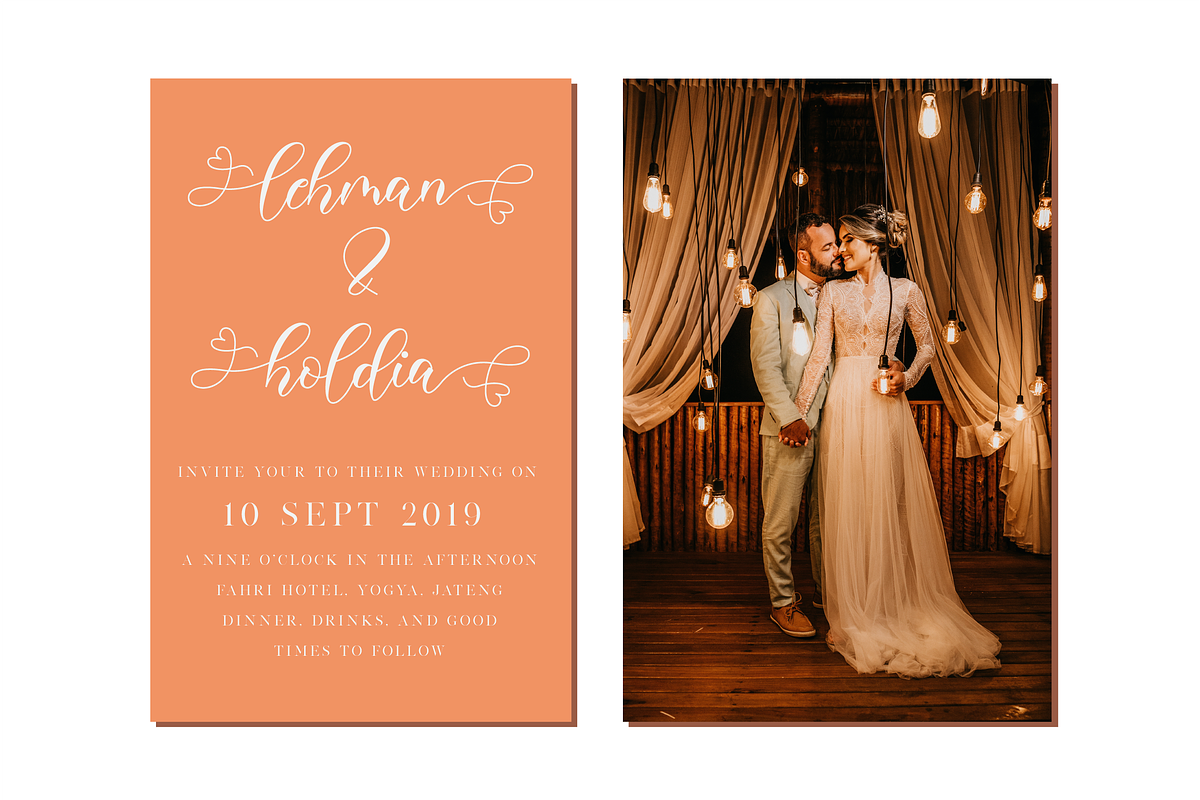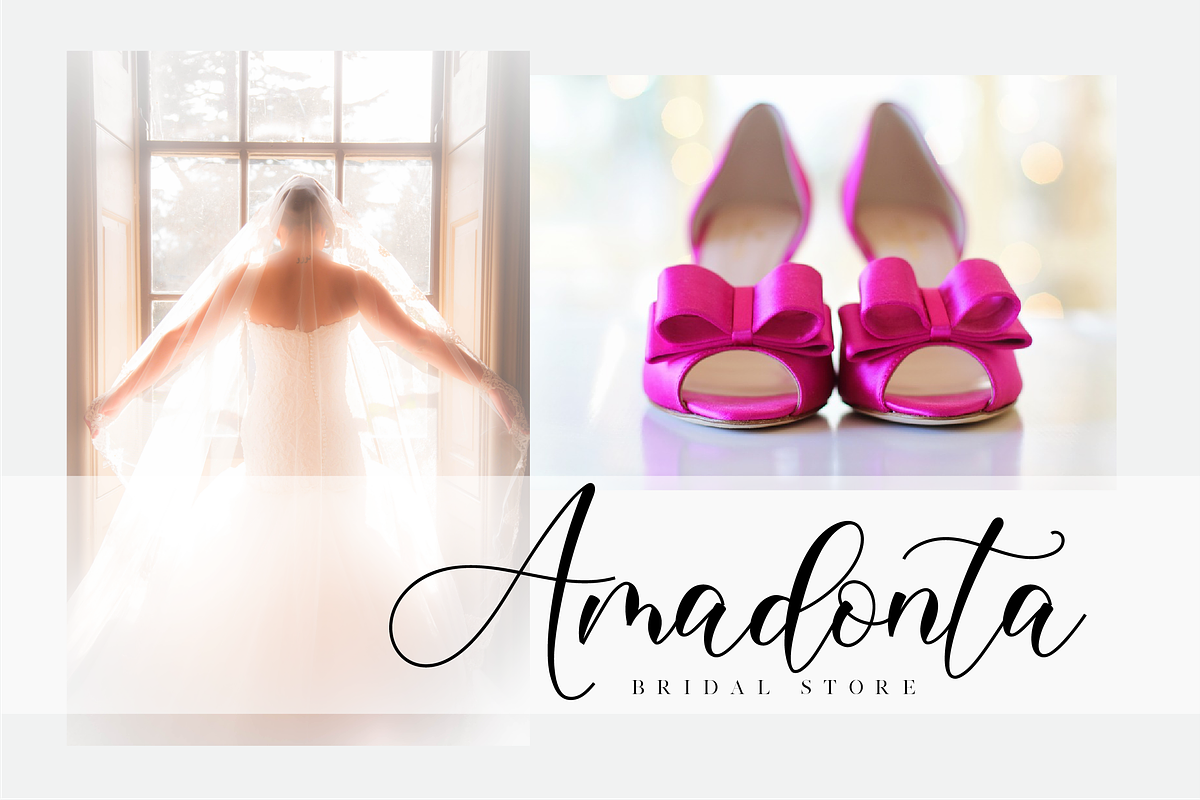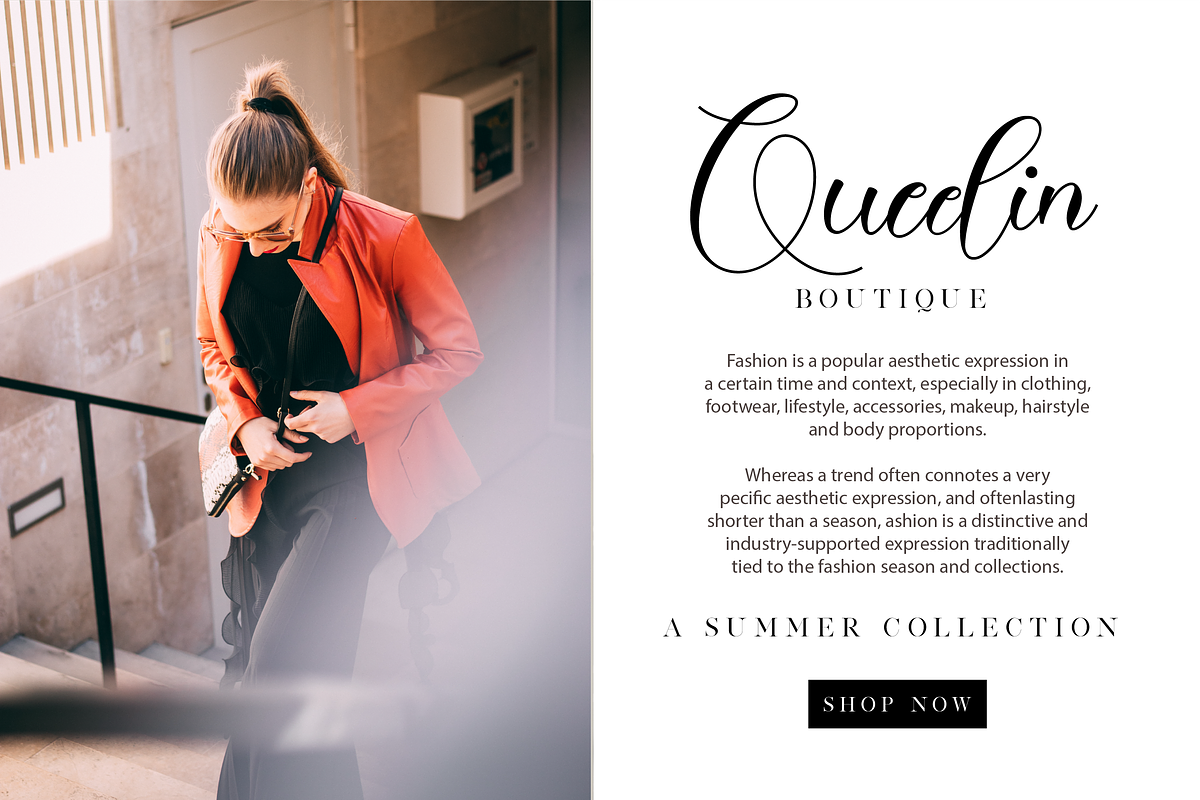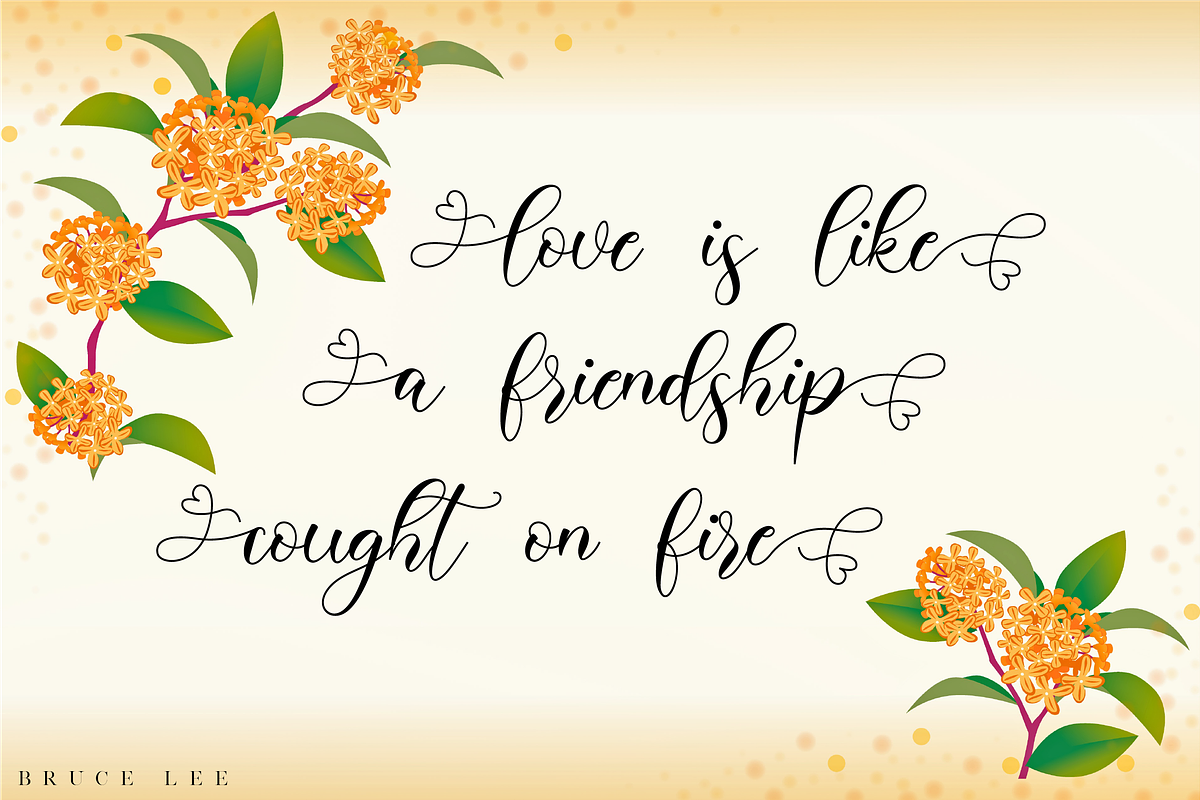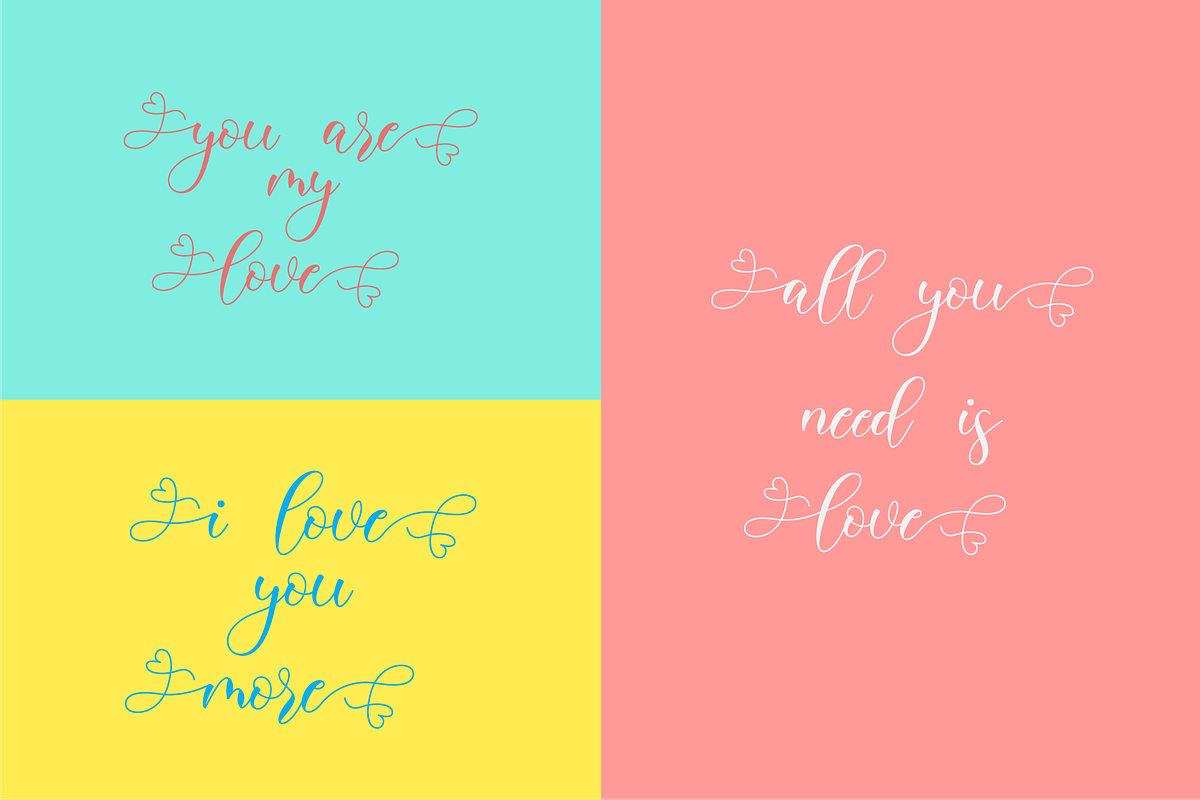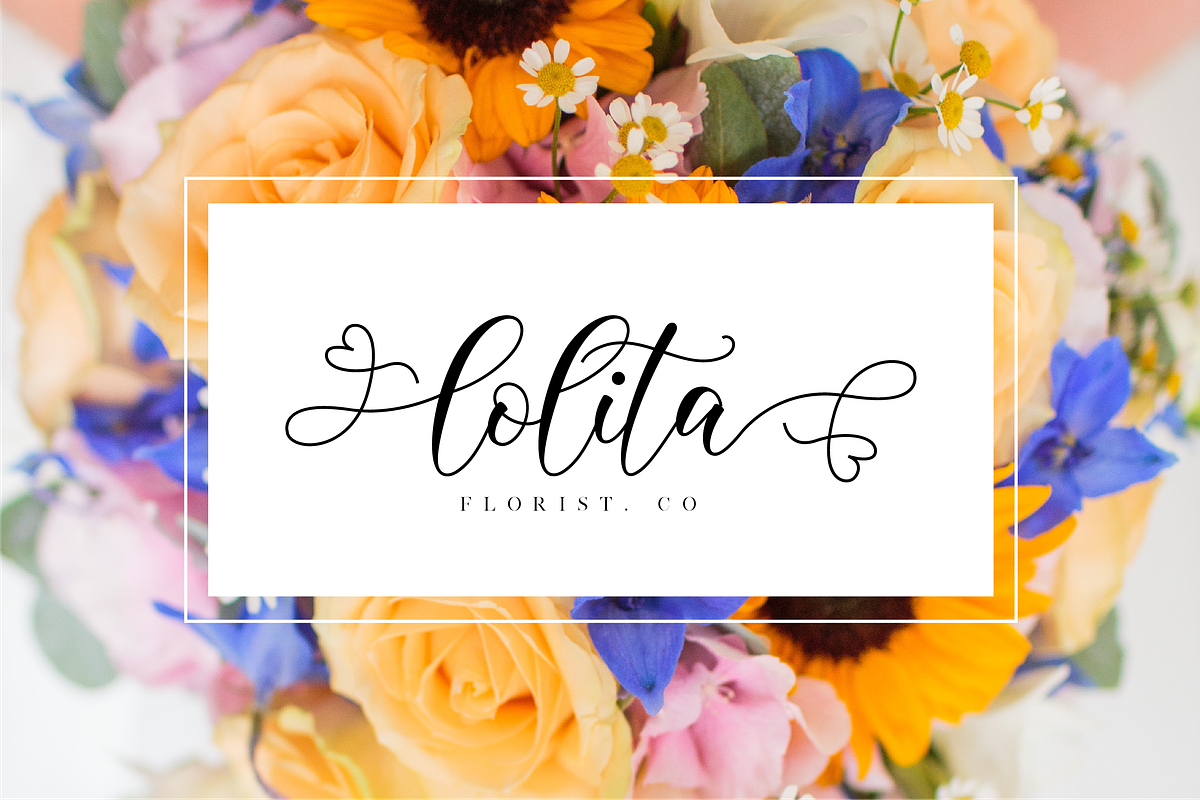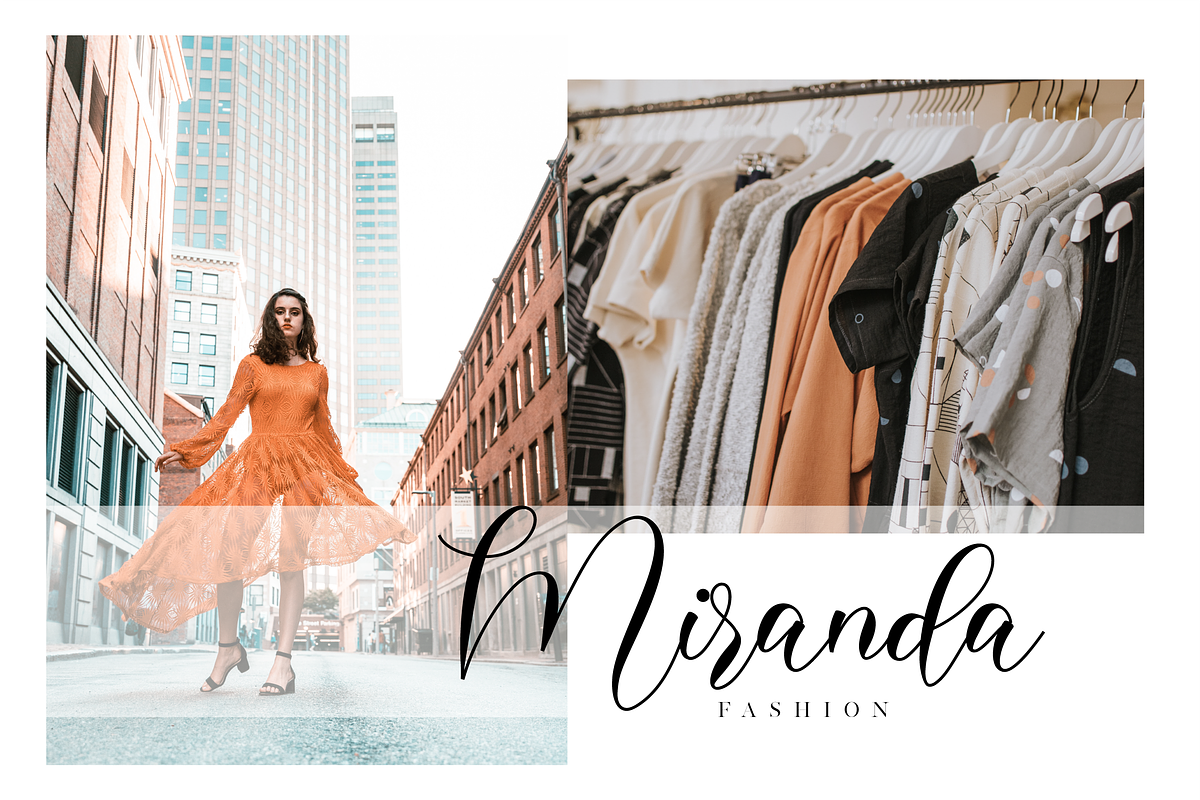
Belisha - A Lovely Script Font
Belisha is a beautiful script with a modern vibe. It has a classy, elegant, and modern look which can be used for logos, branding, invitations, stationary, wedding designs, social media posts, and any other design in need of a handwritten touch.
- Modern Handwritten Font
- Beautiful Swash (Ending tail)
- Beautiful Titling (Beginning tail)
- Special Ligatures